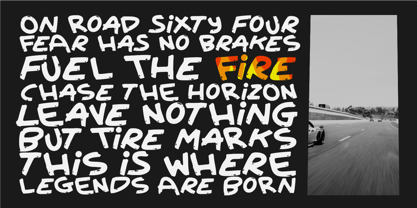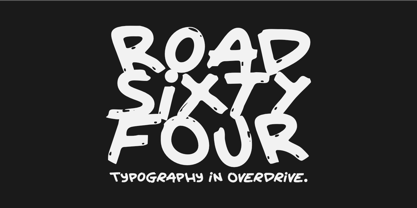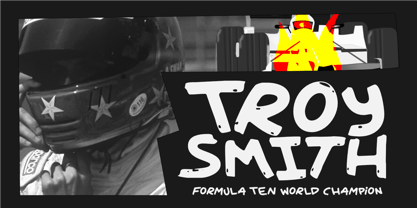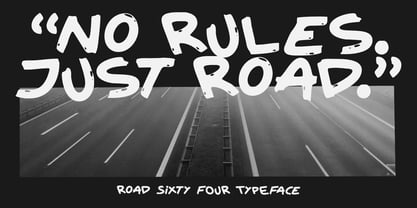
Road Sixty Four
by Epiclinez
Road Sixty Four is a bold and unique display typeface with a cool, textured style that brings unstoppable energy to your designs. Inspired by speed, grit, and the raw power of the open road, this font is crafted to make a strong visual statement wherever it’s used. Its bold strokes and rugged texture make it perfect for projects that demand attention and intensity, from movie posters and gaming titles to sports branding, apparel design, and edgy marketing campaigns. Whether you’re designing a high-octane racing poster, a thrilling action game title, or a powerful streetwear logo, Road Sixty Four delivers versatility with style. The textured finish gives it an authentic, raw edge—making it feel alive, adventurous, and full of motion. With its strong presence, this typeface is perfect for headlines, advertising, product packaging, social media graphics, and any creative project that calls for impact. Take your designs into the fast lane with Road Sixty Four—a font built for speed, strength, and unforgettable impressions.
Designers: Aldy Sidik
Foundry: Epiclinez